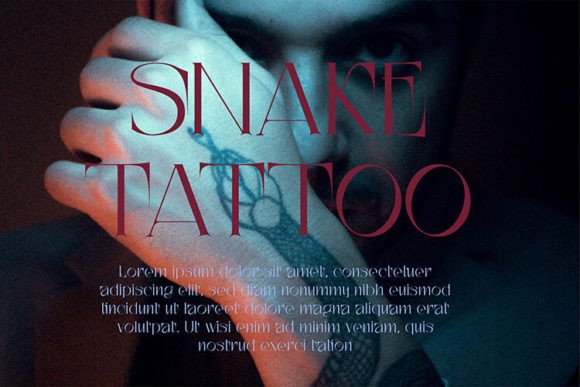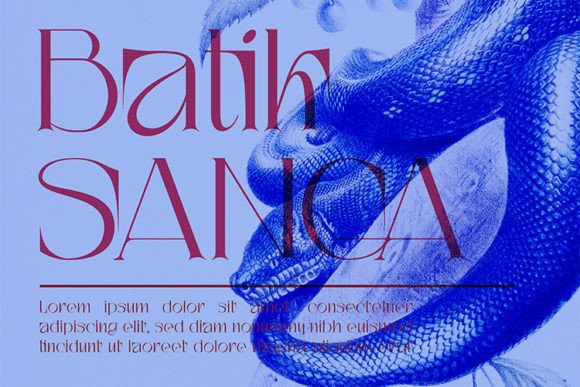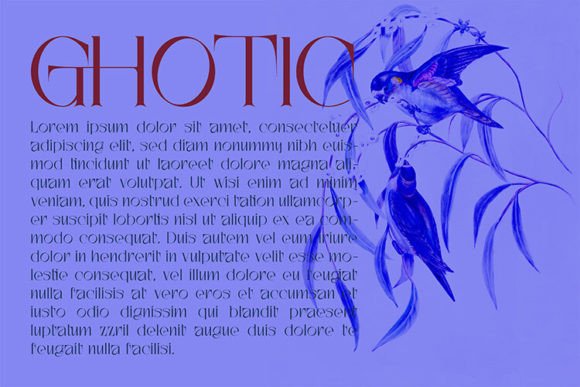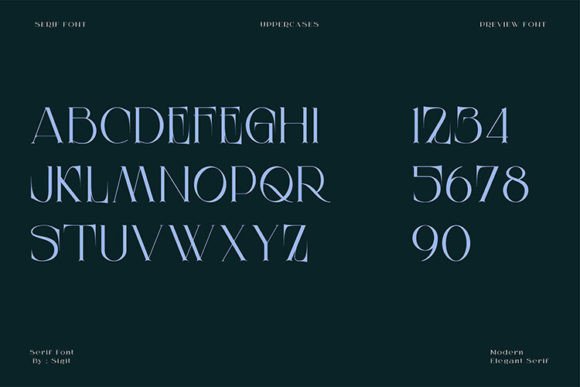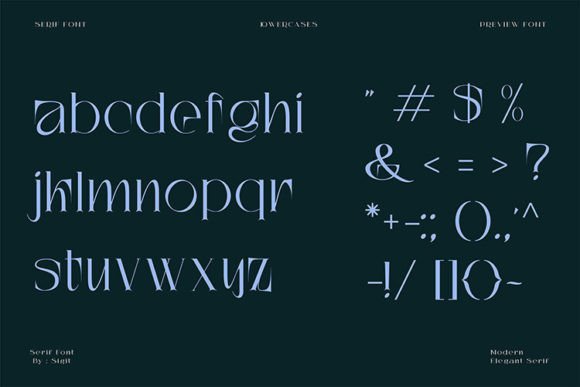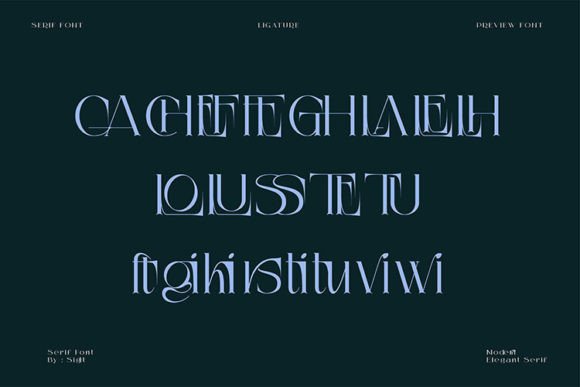
Introduction to Jhelo Font
Jhelo is an elegant, gothic-inspired versatile serif with a range of ligature styles that will make any presentation or design stand out.
You can use this font for various purposes such as magazines, branding, posters or for gothic style poster invitations .
Jhelo Font offers exceptional quality and versatility, making it a valuable addition to your design toolkit. Whether you’re creating for personal projects or commercial use, Jhelo Font delivers professional results.